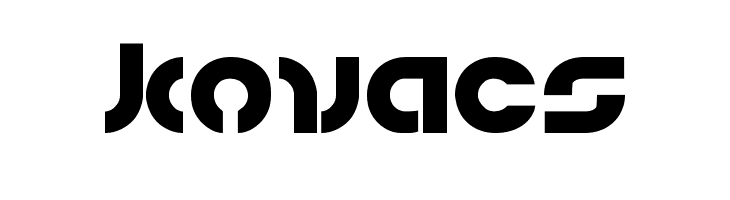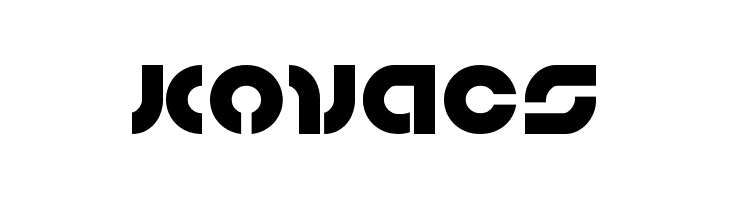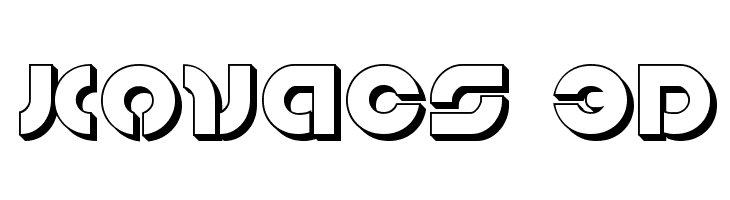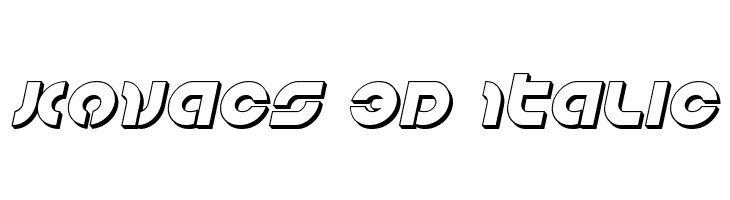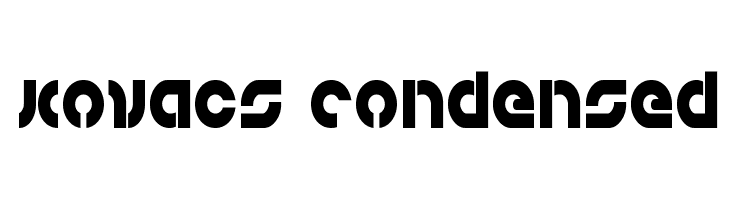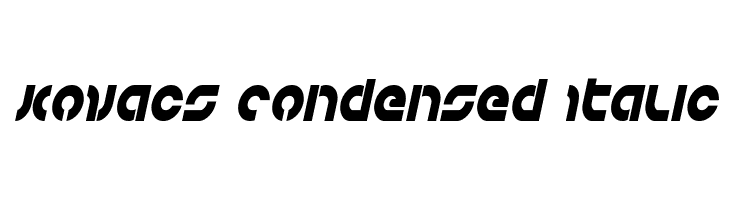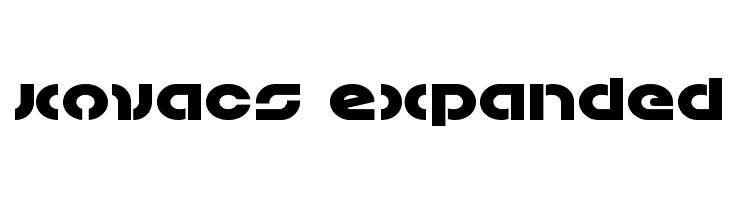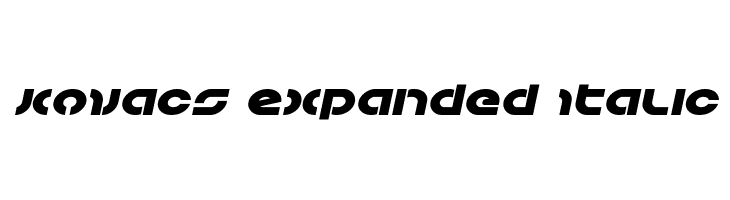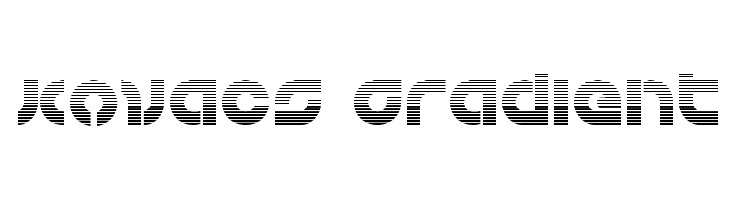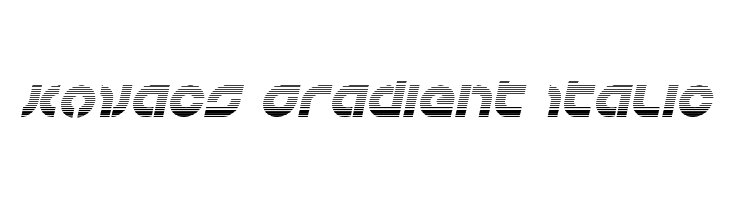
A bold, geometric font with a futuristic and modern style.
A bold, 3D geometric font with a futuristic and tech-inspired design.
A bold, 3D italic font with a futuristic and dynamic style.
A bold, geometric font with a modern, futuristic style and condensed width.
A bold, condensed, and italicized font with a futuristic geometric style.
A bold, geometric font with a futuristic and expanded design.
A bold, expanded, and italicized font with a futuristic and dynamic design.
A bold, striped font with a futuristic and digital aesthetic.
A modern, italic font with a gradient line effect and high contrast.